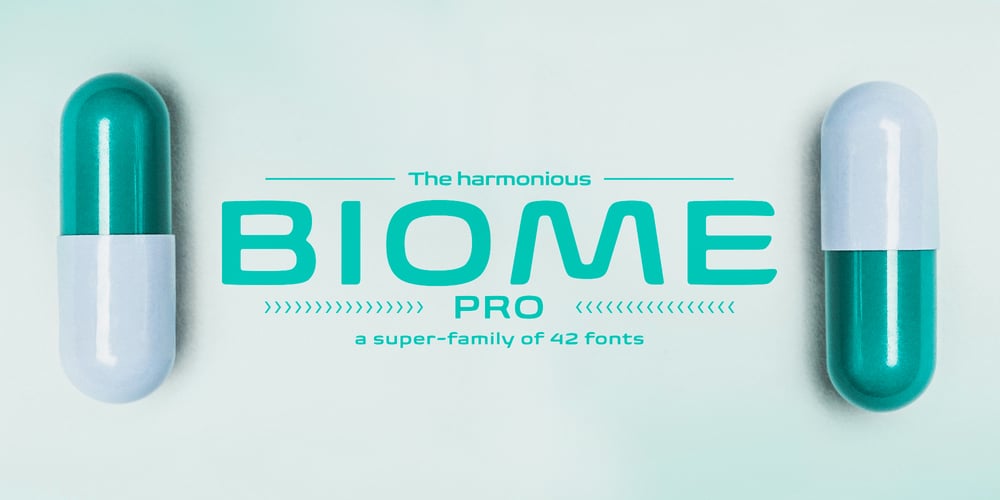
Biome Font Family was designed by Carl Crossgrove and published by Monotype. Biome contains 42 styles and family package options. In the sketches that formed the basis for his typeface Biome, Crossgrove experimented with inner and outer shapes in different styles, adapted letters to the form of the super-ellipse, and added curves only to remove these again. His challenge was to find a harmonious and coherent approach that provided sufficient contrast with existing fonts. Biome is essentially in the sans serif tradition and the letters exhibit only minor variations in terms of line thickness. There is still a suggestion of the super-ellipse at many points, but this never becomes the predominant design factor. While most of the terminals of the vertical strokes are only slightly rounded, the horizontals and diagonals have pronounced arches and it is these that basically determine the round and soft character of the typeface. The more unconventionally shaped letters, such as the lowercase ‘g’ with its two semi-open counters and the ‘k’ and ‘x’ with their crossbars, provide Biome with an individual personality. And this effect is emphasized by the generously rounded links in the ‘v’ and ‘w’ and the uppercase ‘M’ and ‘N’. Biome has been designed as a typeface super-family. From the near hairline Extra Light to the amply proportioned Ultra, there are seven clearly differentiated weights and three tracking widths. There are oblique italic versions of all variants. The range includes small caps and numeral sets containing lowercase and uppercase digits. With its available range of characters, Biome can be used to set texts in all Eastern European languages. Although the remarkable individuality of Biome is most clearly apparent in the larger point sizes, this typeface is not just suitable for producing headlines and logos. Biome’s elegant visual effects mean that it is equally comfortable in short texts while its large x-height and generous counters make it readily legible even in the small font sizes. Biome is a contemporary typeface that employs mid-20th century futurist elements which ironically give it a retro feel.